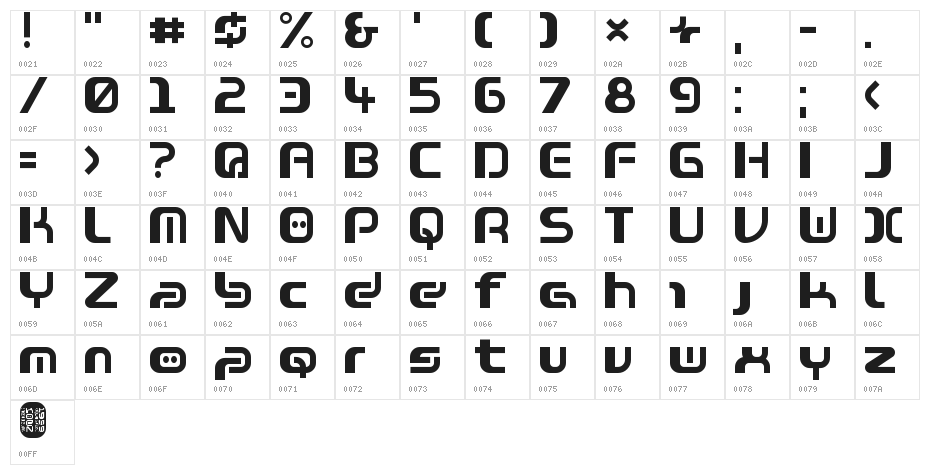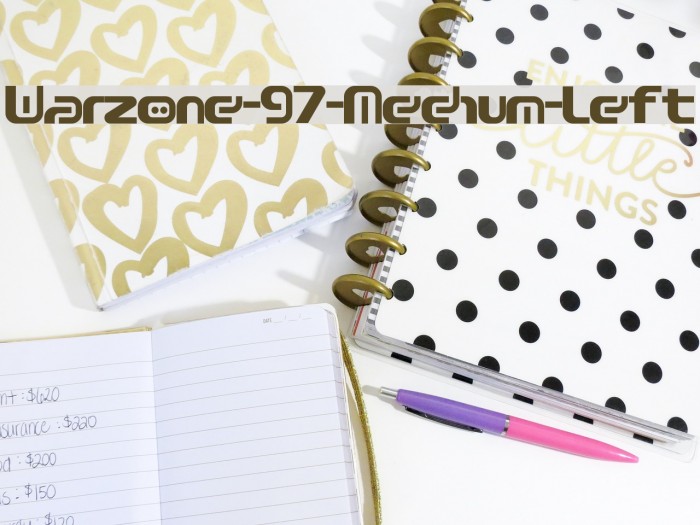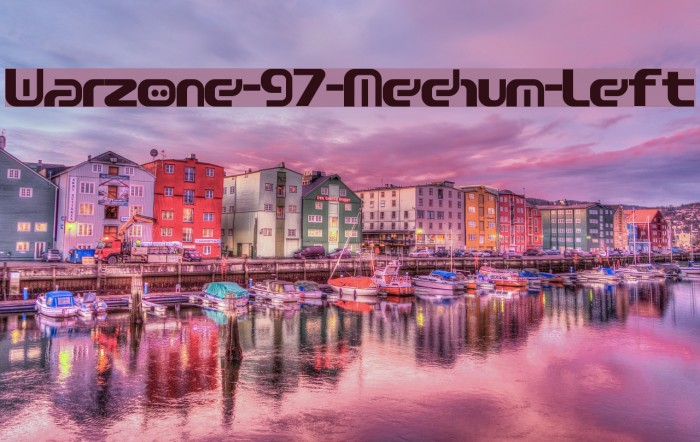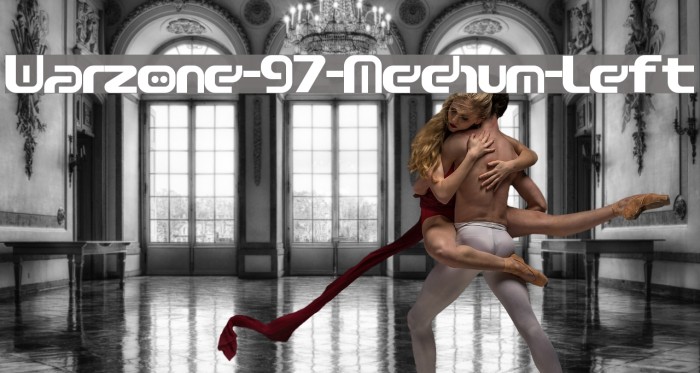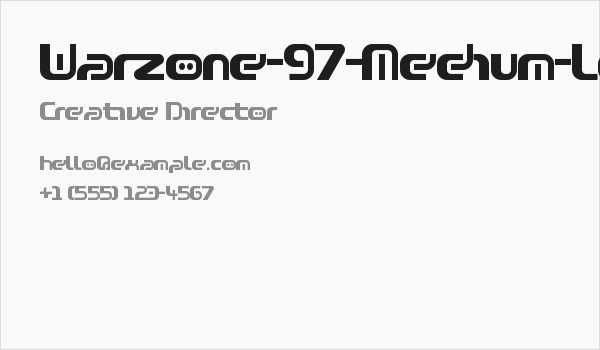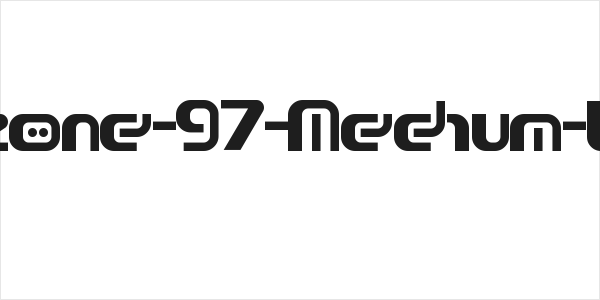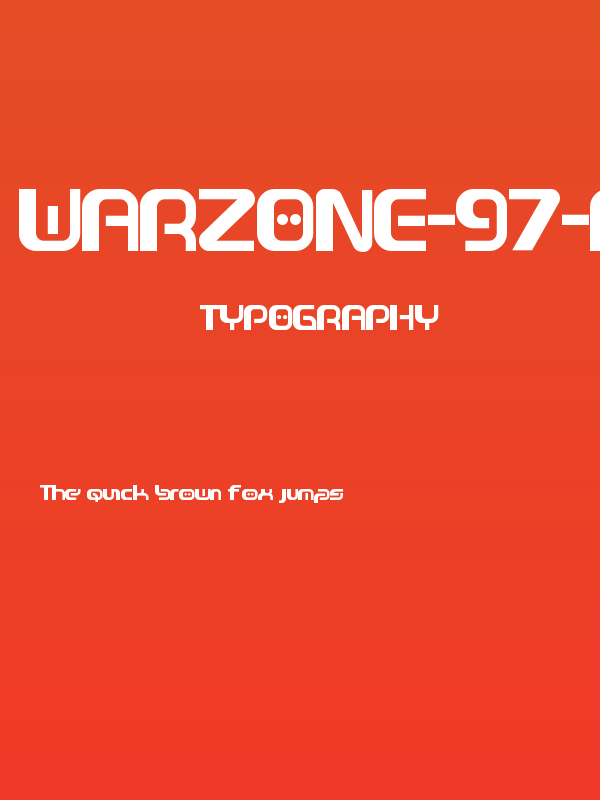
Warzone-97-Medium-Left Font
Warzone-97-Medium-Left Description
This font features a bold and futuristic design with geometric shapes and strong lines. The characters are constructed with a consistent thickness, giving them a uniform and cohesive appearance. The uppercase letters have a blocky, angular style, while the lowercase letters maintain a similar structure with slight variations to enhance readability. The numbers and special characters follow the same design principles, ensuring a harmonious look across all glyphs. This font's modern aesthetic makes it suitable for projects that require a contemporary and edgy feel.
| Proposed Projects | Ideal for video game titles, tech branding, sci-fi posters, and digital media. |